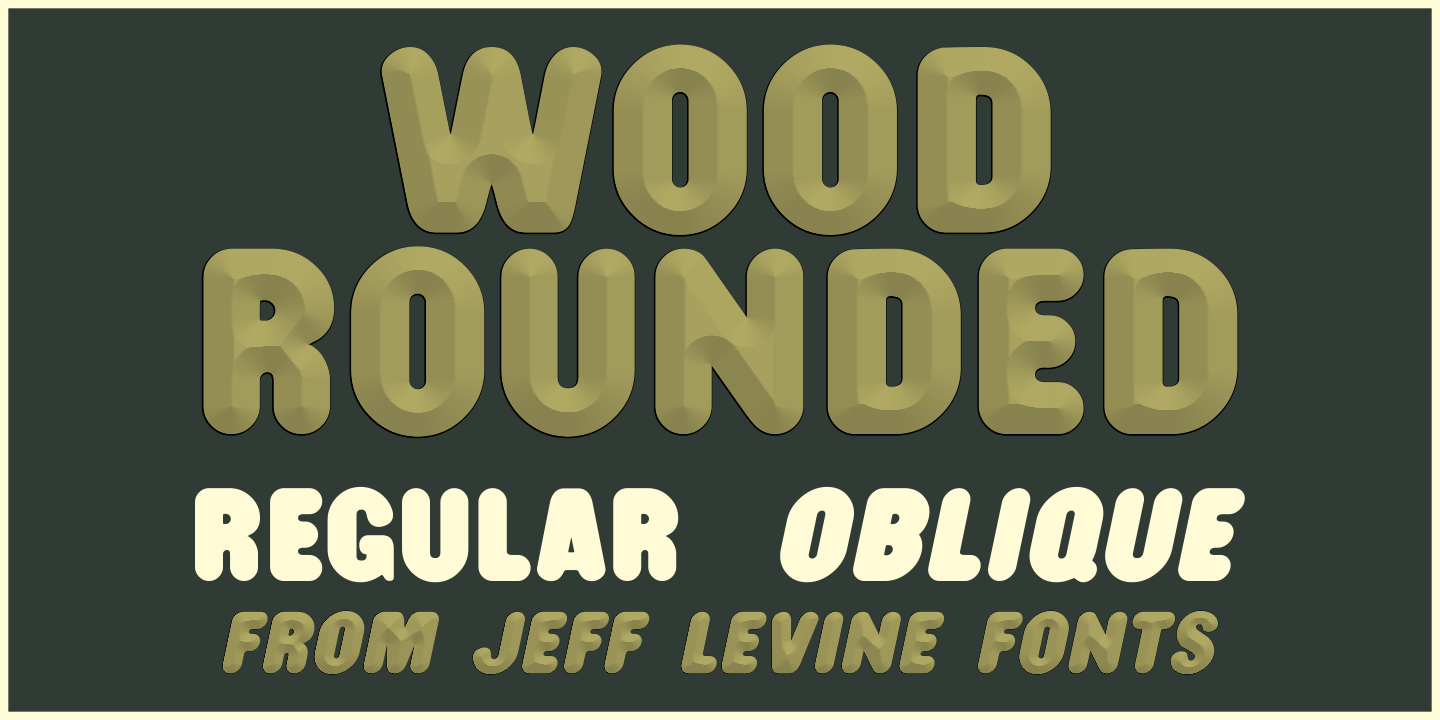
Wood Rounded JNL Font is perfect for rustic cabin signage, artisan woodworking branding, craft brewery logos, organic farm market materials, handmade furniture company graphics, natural product packaging, eco-friendly brand communications, outdoor adventure gear labeling, sustainable lifestyle marketing, and wholesome family business designs.
What makes Wood Rounded JNL Font so exciting is its remarkable ability to capture the warm, organic essence of hand-carved craftsmanship through lovingly rounded letterforms that seem shaped by skilled artisans using traditional woodworking tools and generations of inherited knowledge. This font embodies the spirit of authentic craftsmanship and natural beauty, featuring gently curved characters that appear to have been carefully sanded smooth by patient hands and seasoned by years of honest labor. The comforting letter shapes create an atmosphere of genuine warmth and trustworthy quality, making every word feel like it's been lovingly crafted by masters who understand that true beauty comes from working with nature rather than against it.
The Wood Rounded JNL Font family includes Light, Regular, Medium, Bold, and Distressed variations, along with natural texture elements and rustic decorative symbols. Each style maintains the font's distinctive handcrafted character while offering versatility for different artisan applications, from subtle product descriptions to bold workshop headlines that celebrate the timeless appeal of traditional craftsmanship and natural materials.
This authentic typeface brings genuine artisan aesthetics to contemporary design projects. The Wood Rounded JNL Font Free Download offers designers an invaluable resource for creating memorable brand identities that communicate quality, sustainability, and handmade authenticity. Whether you're developing craft business branding, designing natural product packaging, or creating rustic lifestyle communications, this font delivers unmatched warmth and artisanal credibility.
The expertly crafted letterforms in Wood Rounded JNL Font feature smooth curves and organic proportions that mirror the natural grain patterns found in carefully selected hardwoods and the gentle wear created by years of loving use. Each character has been designed to maintain excellent readability while expressing the patient dedication and environmental consciousness that define true sustainable craftsmanship. The font's distinctive personality makes it ideal for applications requiring genuine authenticity and natural appeal.
Artisan business professionals appreciate how Wood Rounded JNL Font effortlessly communicates quality, tradition, and environmental responsibility while appealing to audiences seeking authentic handmade products and sustainable lifestyle choices that honor both craftsmanship heritage and ecological stewardship. The comprehensive character set includes natural symbols, woodworking elements, organic decorations, and extensive international language support, ensuring global compatibility while preserving its distinctive handcrafted identity. This makes it an invaluable resource for furniture makers, craft breweries, organic farms, and any organization seeking typography that embodies the enduring values of skilled craftsmanship, environmental consciousness, and the irreplaceable beauty of products made with genuine care and respect for natural materials.